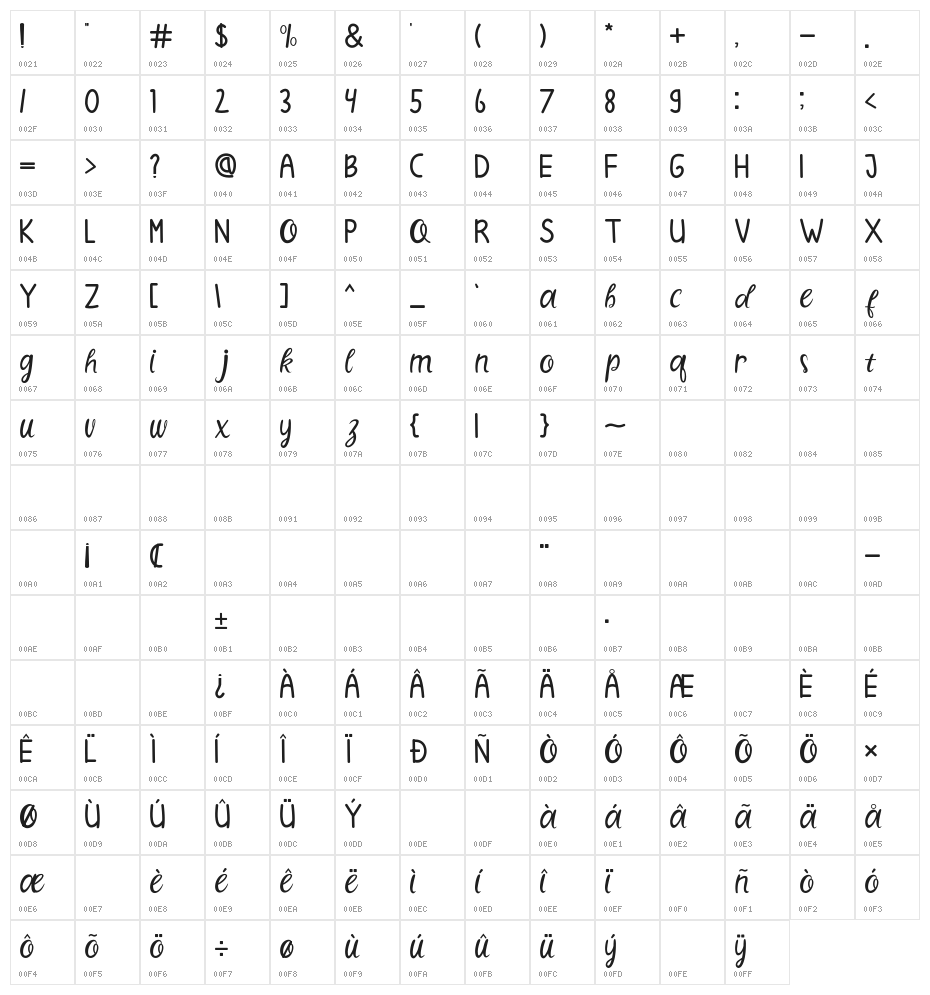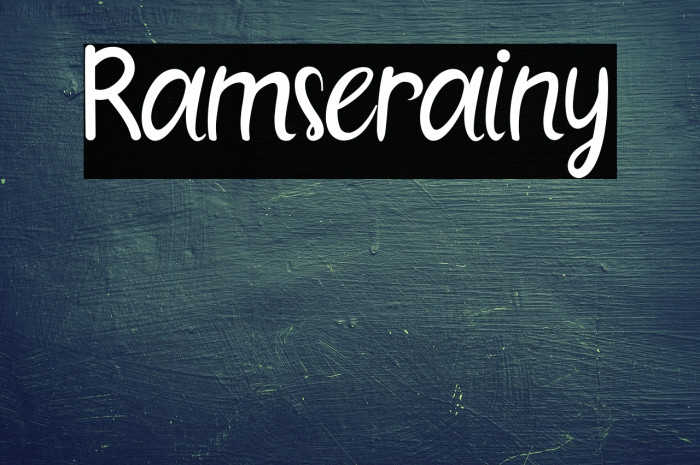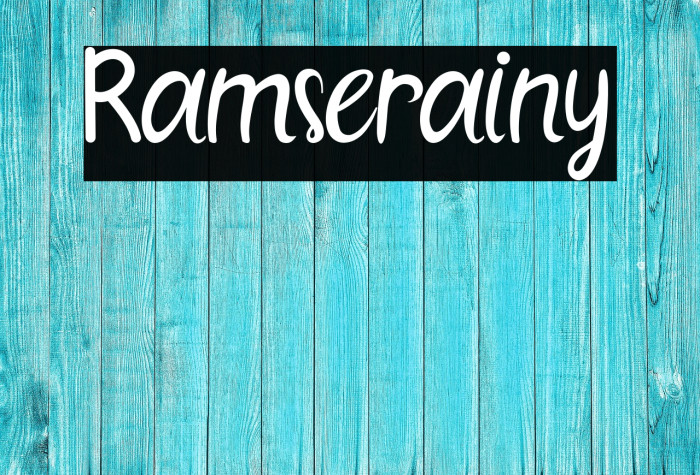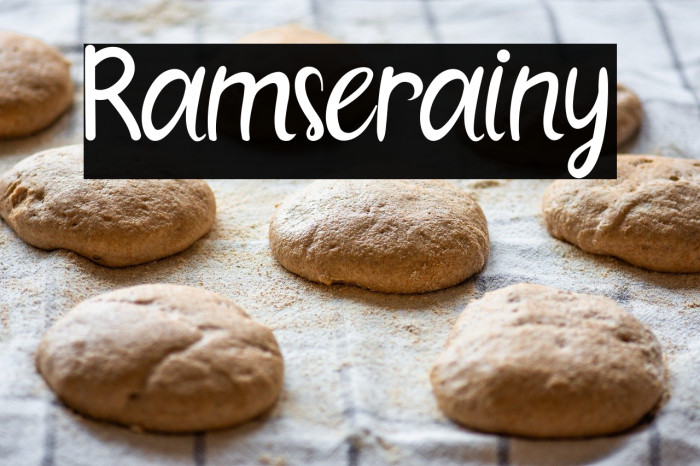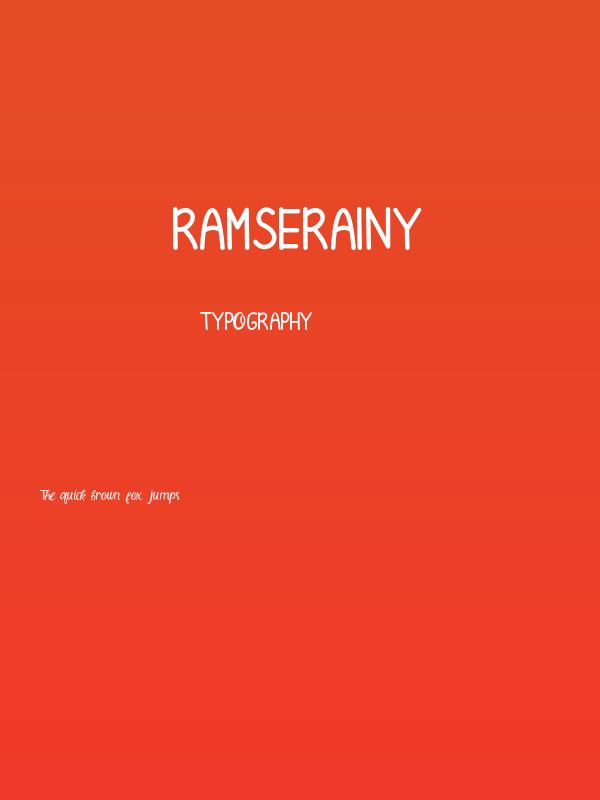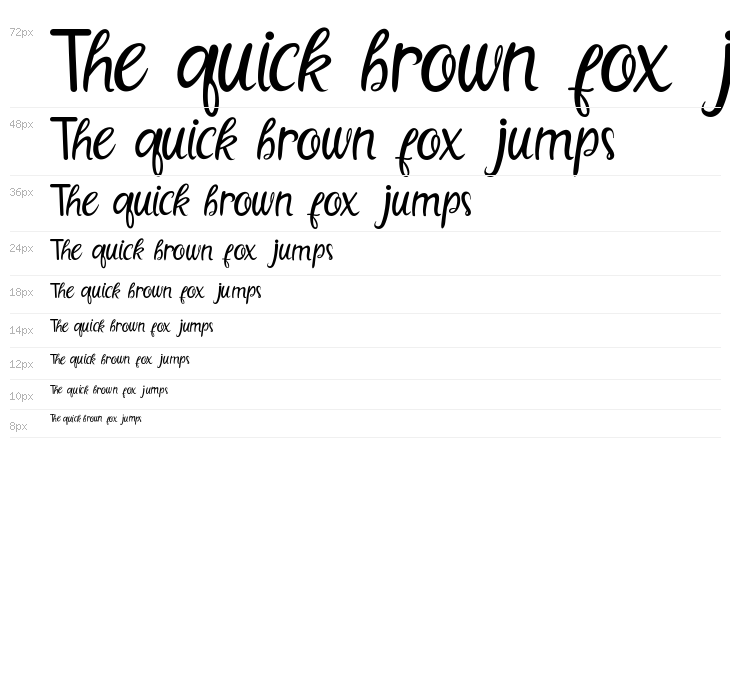
Ramserainy Font
Ramserainy Description
This font features a playful and whimsical style with a handwritten appearance. The uppercase letters are bold and slightly rounded, giving a friendly and approachable feel. The lowercase letters have a more fluid and cursive-like quality, adding a touch of elegance and creativity. The numerals are consistent with the playful theme, maintaining readability while adding character. Special characters are well-integrated, matching the overall aesthetic. This font is versatile, suitable for projects that require a personal and informal touch.
| Use Case | Headlines, Logos, Informal text |
| Proposed Projects | Ideal for greeting cards, children's books, playful branding, and creative social media graphics. |